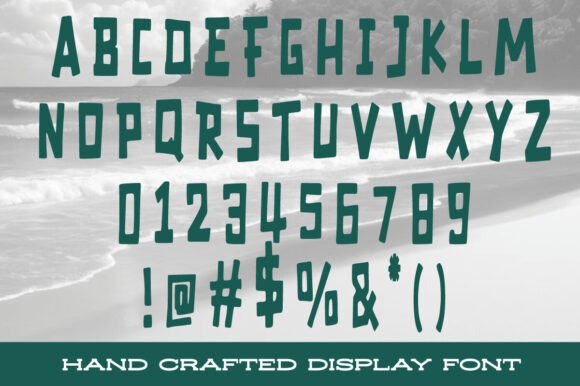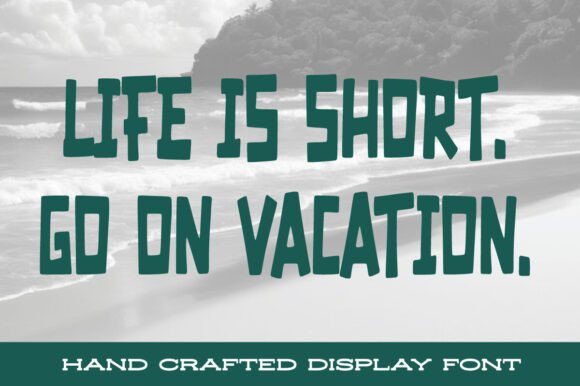
Introduction to Punta Cana Font
As a designer, you’ve probably found yourself stuck on a project, staring at a blank screen, trying to capture the essence of a carefree summer day. That’s where the Punta Cana Font comes in – a lively, hand-crafted font that embodies the spirit of island life. Its flowing, organic letterforms evoke swaying palm trees, sun-soaked beaches, and vibrant coastal culture, making it the perfect design resource for any creative project.
Whether you’re working on a summer apparel campaign, designing a beach bar’s branding, or simply need a high-quality font for a personal project, the Punta Cana Font is an excellent choice. With its natural, hand-crafted style and transparent background, this font is a valuable addition to any designer’s toolkit. And the best part? It’s available for free download, making it accessible to designers of all levels.
- Designed with a tropical flair, perfect for projects related to travel, leisure, and relaxation, such as Punta Cana-inspired designs.
Honest Review: Punta Cana Font
I recently stumbled upon the Punta Cana Font, and I must say it’s a great addition to any design resource collection. This free download has some amazing features that make it perfect for creative projects.
- ✨ High quality: The font is incredibly crisp and clear, making it perfect for printing or digital use.
- ✨ Unique style: The font has a distinctive tropical feel that’s perfect for travel or beach-themed projects.
- ✨ Transparent background: This is a great feature for designers who want to use the font on a variety of backgrounds without worrying about compatibility issues.
- ⚠️ Limited character set: The font only includes a limited number of characters, which may not be suitable for projects that require a full character set.
- ⚠️ Not suitable for all fonts: The font is not designed for use with serif or script fonts, so it may not be the best choice for all design projects.
Overall, I’m really impressed with the Punta Cana Font. It’s a great addition to any design resource collection, and I’m sure it will come in handy for many creative projects. Just be aware of its limitations, and you’ll be all set to create some amazing designs!
Punta Cana Font
The Punta Cana Font is a high-quality design resource that can elevate any creative project. This versatile font is perfect for designers, artists, and anyone looking to add a touch of sophistication to their work.
Tips for Getting the Most Out of Punta Cana Font
For optimal results, be sure to:
Use the font on a transparent background to create a seamless look.
Experiment with different font sizes and styles to add depth and visual interest to your design.
The Punta Cana Font is perfect for:
Wedding invitations and stationery.
Travel and tourism brochures.
Restaurant and bar menus.